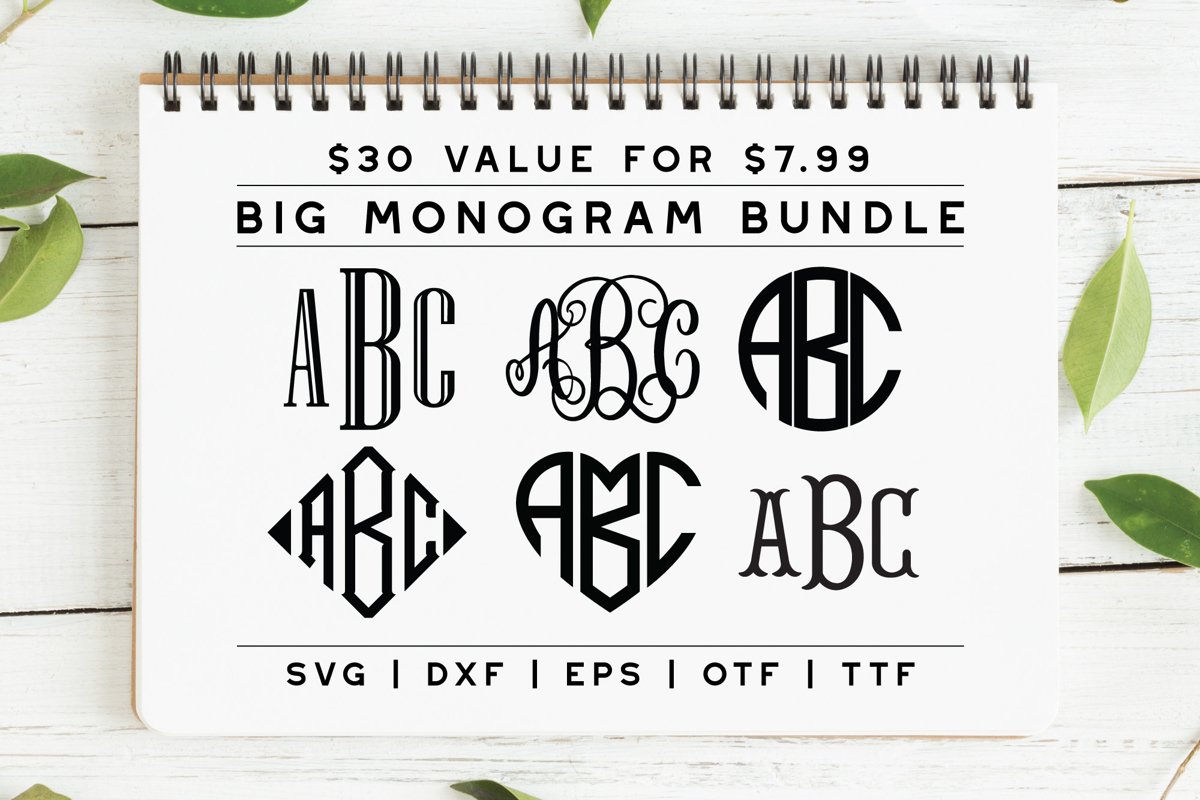
BIG Monogram Font Bundle | The Ultimate Bundle!
- Classic Elegant Monogram
- Swirl Monogram
- Round Monogram
- Diamond Monogram
- Heart Monogram
- Fishtail Monogram